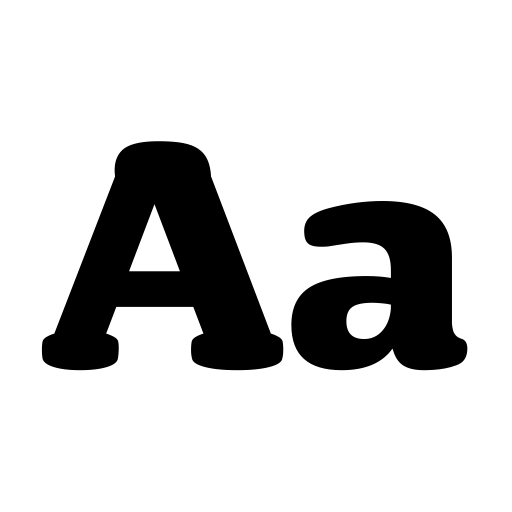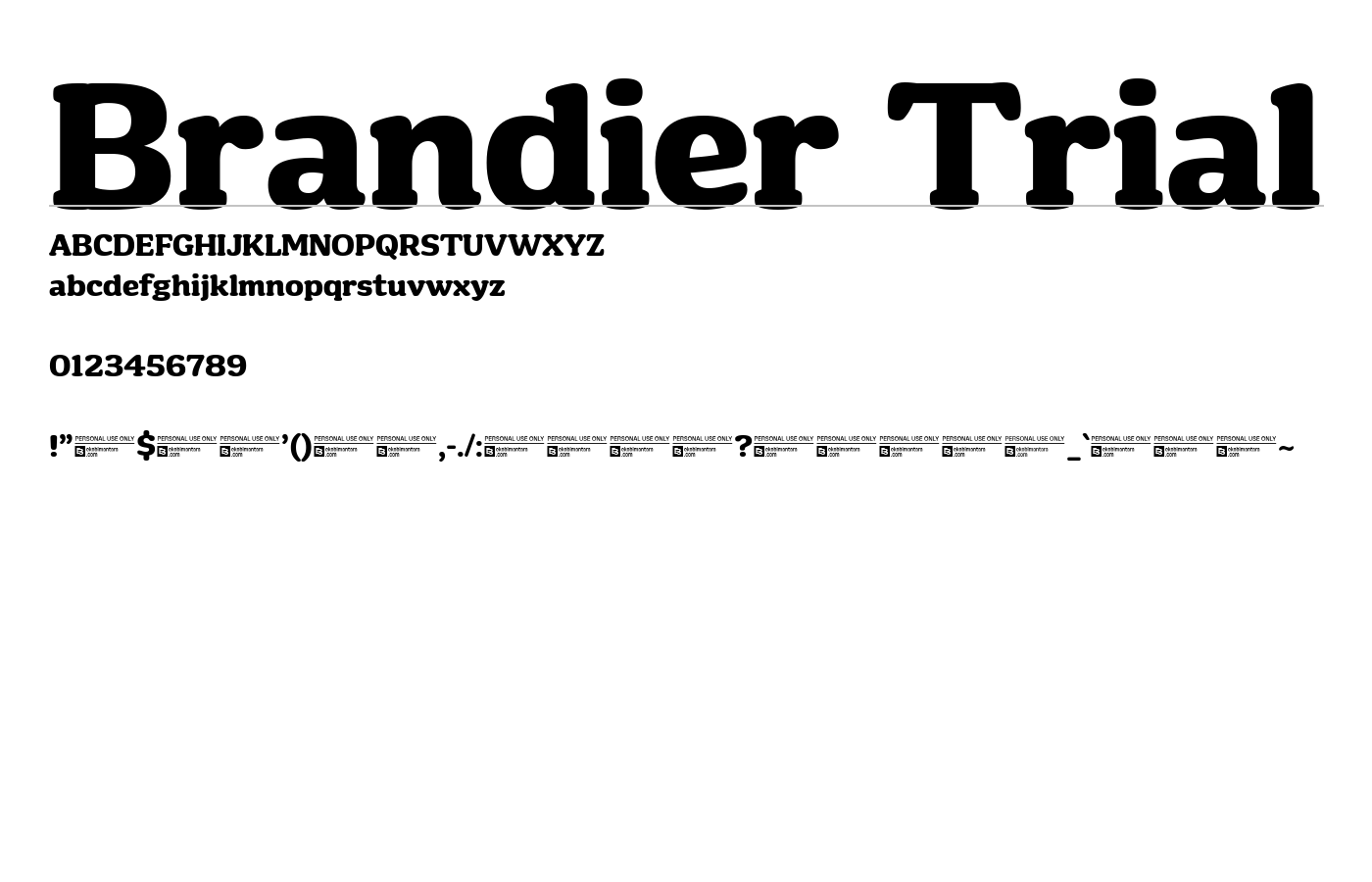
Brandier Trial is a bold slab serif font featuring thick, solid strokes with strong bracketed serifs that give it a sturdy, confident presence. Its chunky, slightly rounded letterforms combine traditional slab serif qualities with a friendly, approachable feel, making it ideal for headlines, logos, and branding that demands attention without sacrificing charm. This font works well in contexts where bold impact and readability are key, such as packaging, editorial covers, and eye-catching posters.
Brandier Trial Font
About Brandier Trial Font